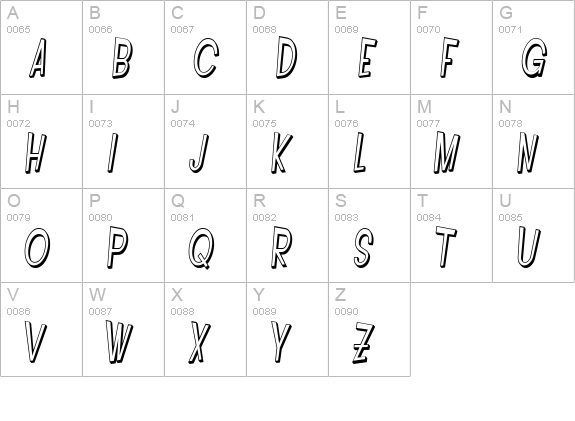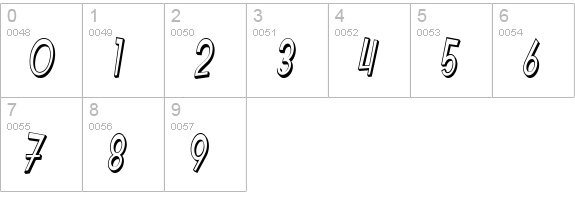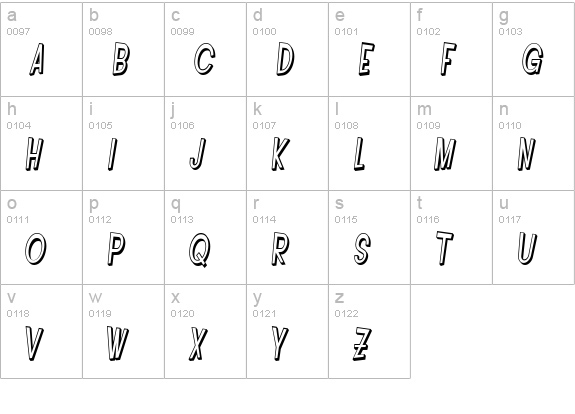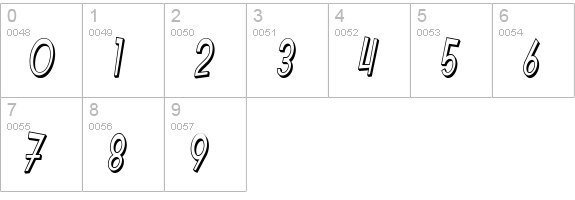
SF Intoxicated Blues Shaded Oblique Font Details
SF Intoxicated Blues Shaded Oblique is a distinctive, italic variant in the SF typeface family \xE2\x80\x94 well suited to design and typography projects.
SF Intoxicated Blues Shaded Oblique font is a captivating and mesmerizing typeface that exudes a sense of intoxicating bluesy vibes. Its oblique slant adds a touch of uniqueness and dynamism to any text, making it perfect for projects that require a bold and edgy aesthetic. This font features beautifully shaded characters with a subtle gradient effect, creating a visually stunning and eye-catching appearance. The combination of the shaded design and the oblique angle gives SF Intoxicated Blues Shaded Oblique font a three-dimensional quality, making it stand out from the crowd. With its stylish and contemporary look, SF Intoxicated Blues Shaded Oblique font is a versatile choice for a wide range of creative projects, including posters, album covers, logos, branding materials, and more. It adds a touch of sophistication and personality to any design, making it instantly recognizable and memorable. One of the best things about SF Intoxicated Blues Shaded Oblique font is that it is absolutely free to download. You can easily access this font and enhance your design projects with its distinctive and alluring aesthetic. Simply visit FontsMarket.com, where SF Intoxicated Blues Shaded Oblique font is freely available for download, allowing you to effortlessly incorporate this stunning typeface into your creative endeavors. So why wait? Elevate your designs with the captivating SF Intoxicated Blues Shaded Oblique font and let its intoxicating bluesy vibes take center stage. Download this font for free at FontsMarket.com and unlock a world of possibilities for your next design project.